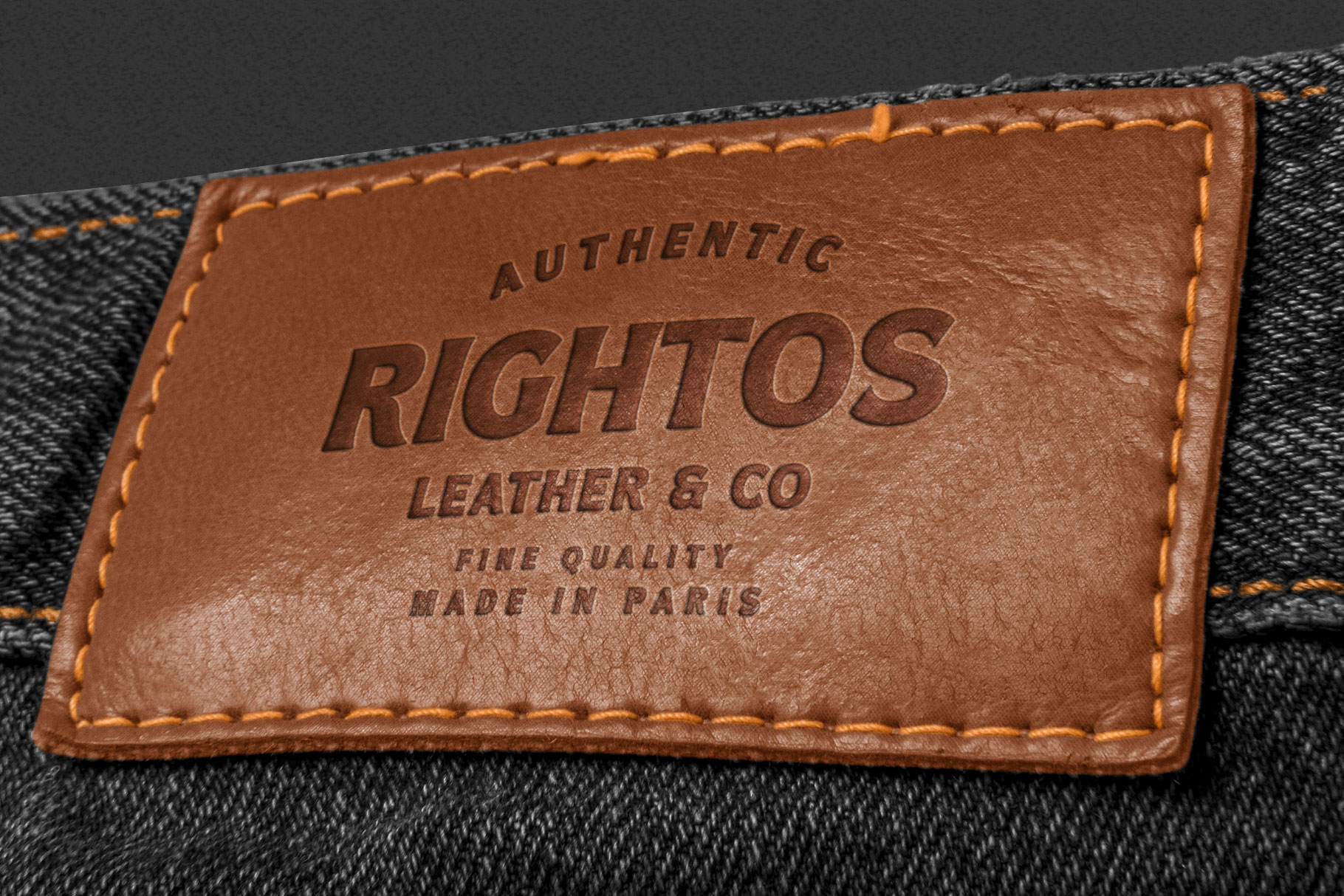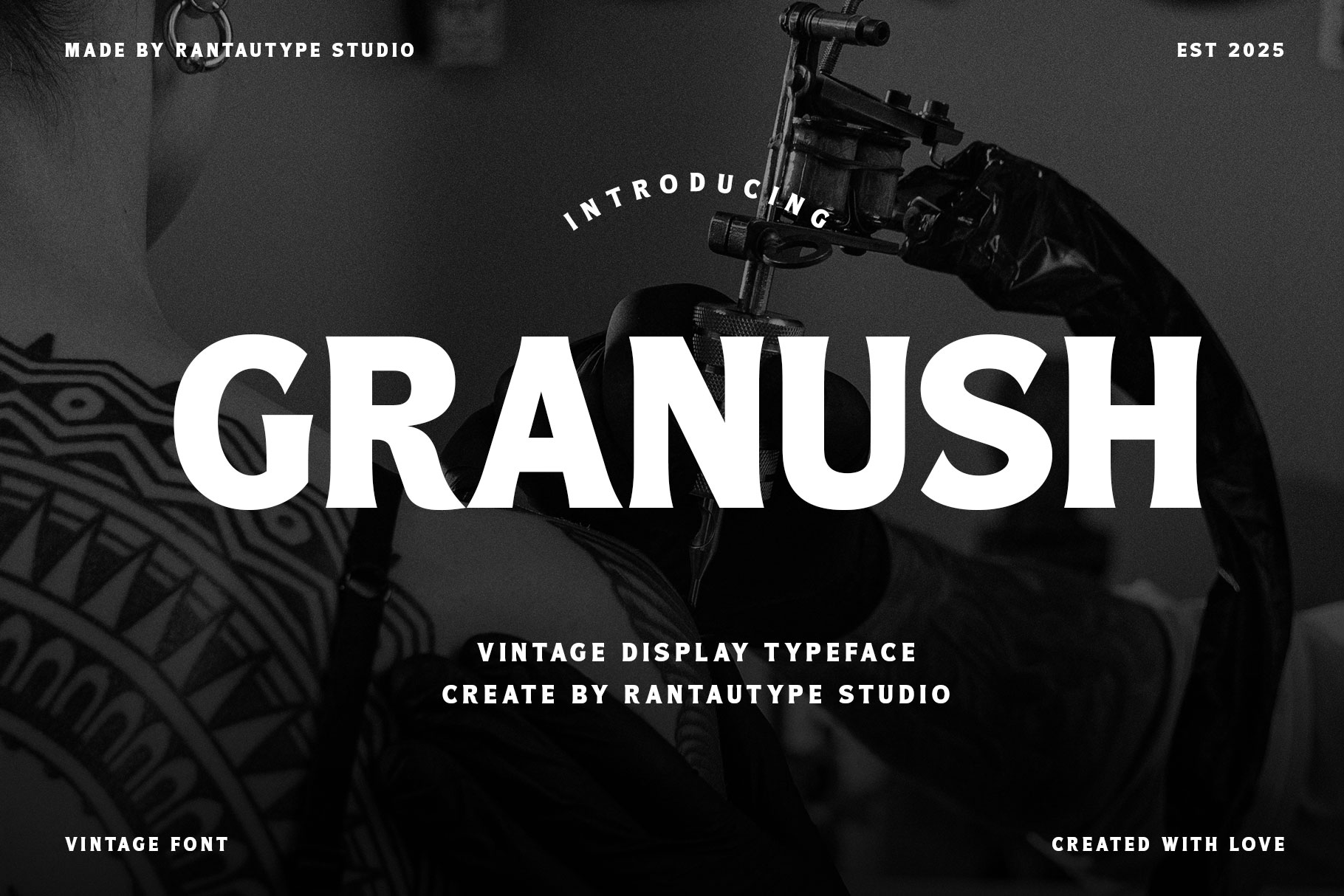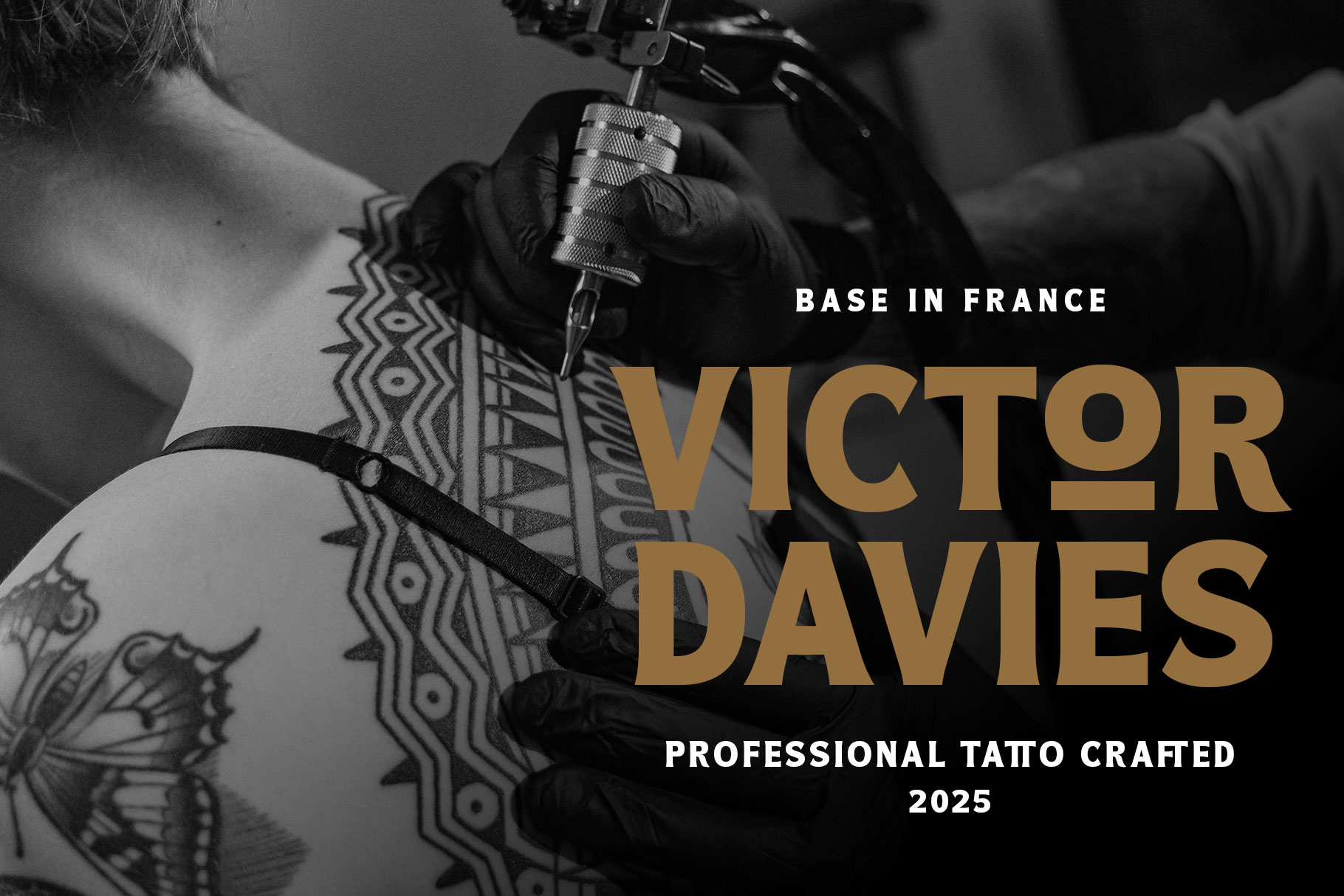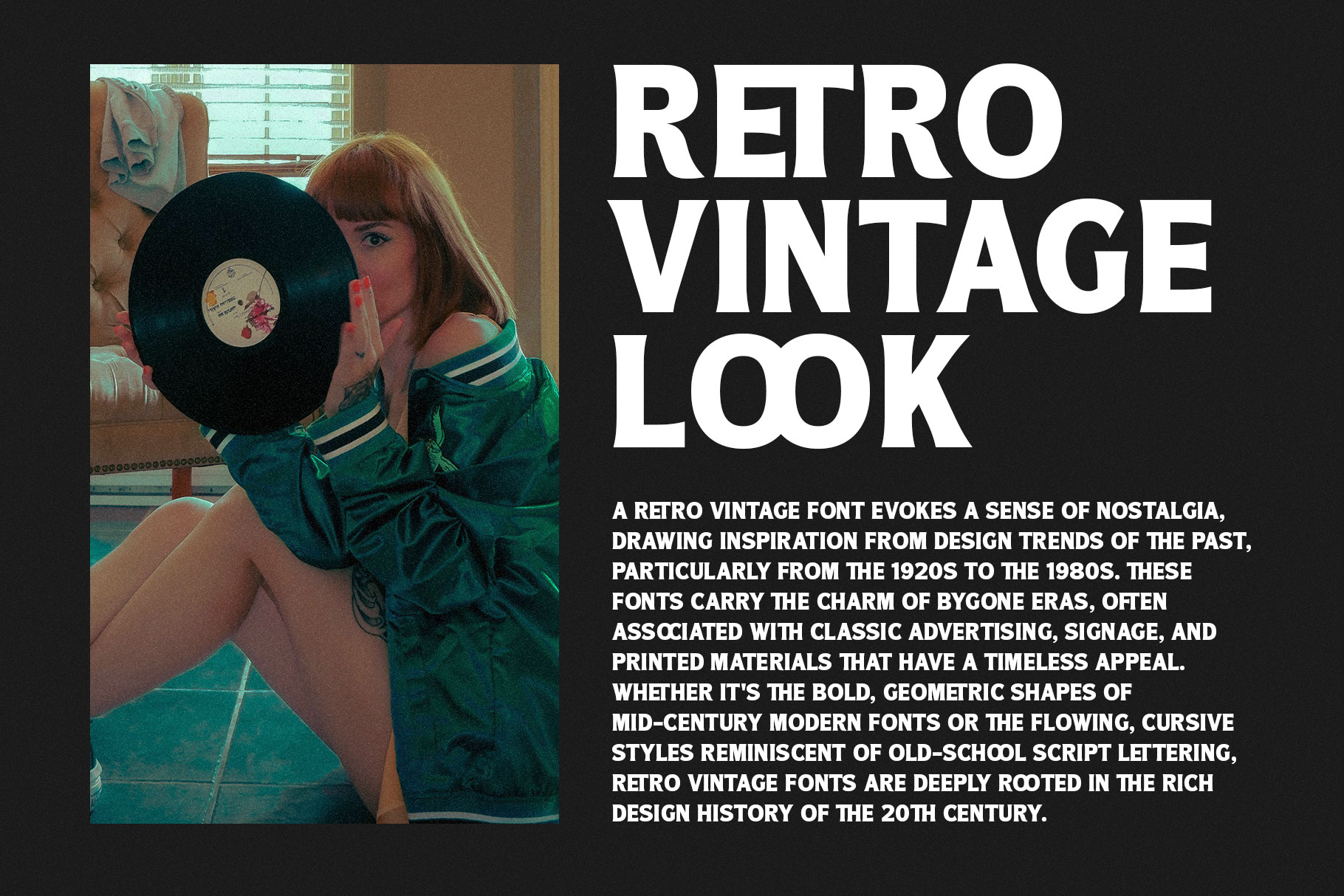
Granush Vintage Display Typeface
Granush is more than just a typeface it’s inspire by tatto culture, blending bold strokes and handcrafted charm into every letterform. The font’s nostalgic vibe evokes imagery of sailors, barbershops, biker culture, and timeless inked motifs. Yet, it remains highly adaptable in contemporary contexts, easily blending into modern layouts without losing its vintage soul.
Granush is a perfectly choice for any creative endeavor, chic, lifestyle design such as logotype, advertisements, watermark on photography, stationery, branding project, display and magazine, invitation, corporate brand, product design, label, business project and many other project with vintage touch.